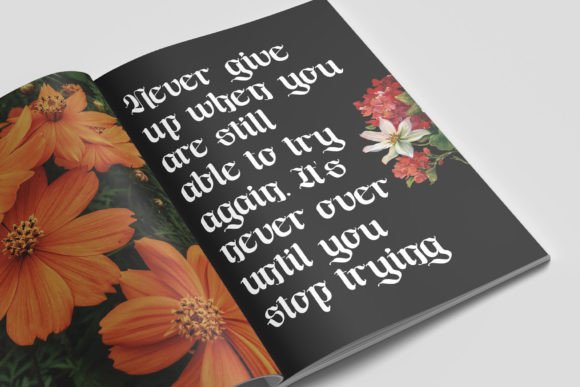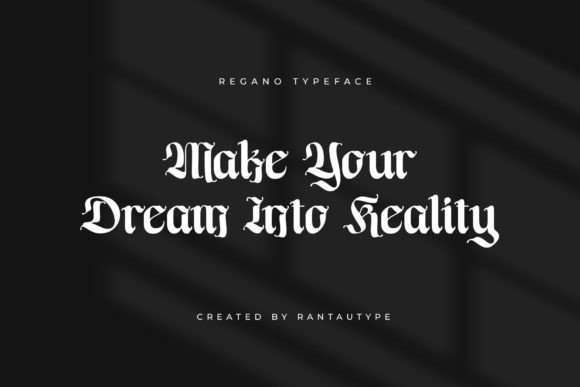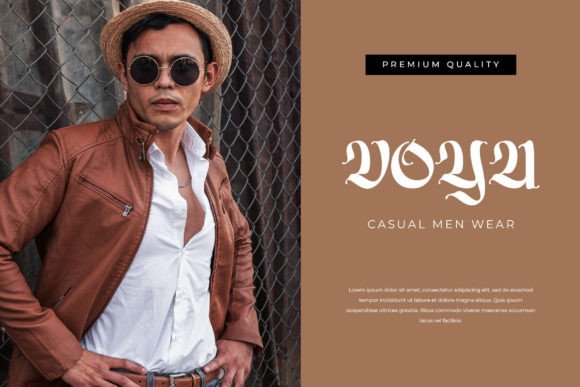
Regano Font
Regano is classic blackletter font with delicate curves and refined details create a sense of sophistication and elegancy. Regano brings a touch of charm and sophistication to branding, editorial designs, and more.